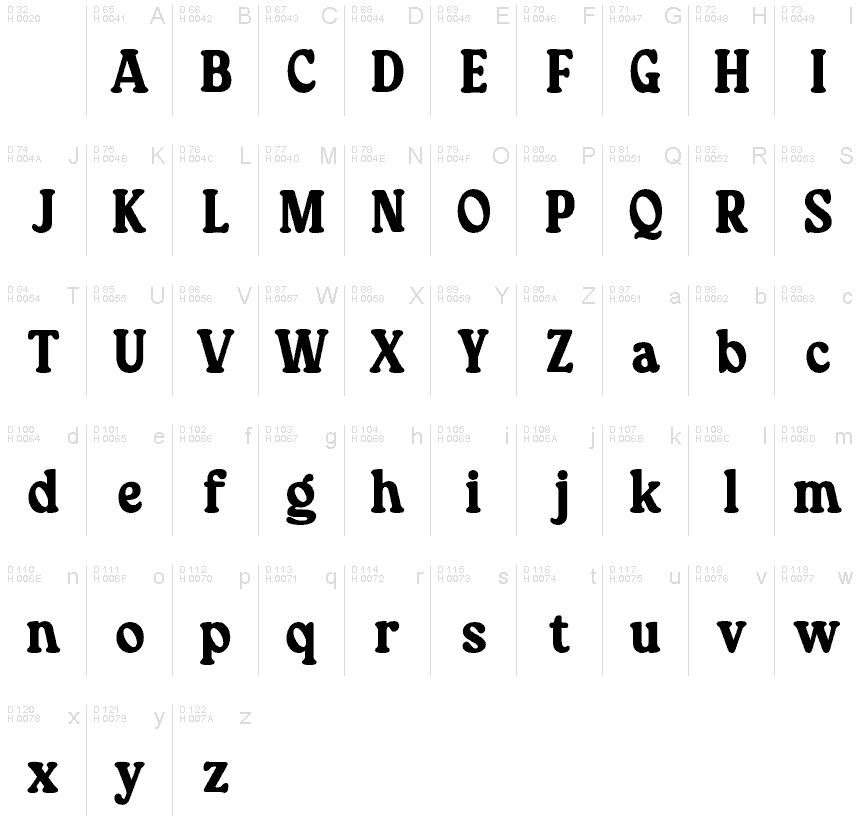
CS Chucky Regular Demo
CS Chucky font is a free serif font by Craft Supply Co. It is a vintage-inspired and robust typeface with expressive qualities and an overall traditional appearance. The combination of solid strokes, compacted letterforms, and moderate contrast brings the font its unique powerful presence. Regardless of the message length, this resource ensures excellent readability.